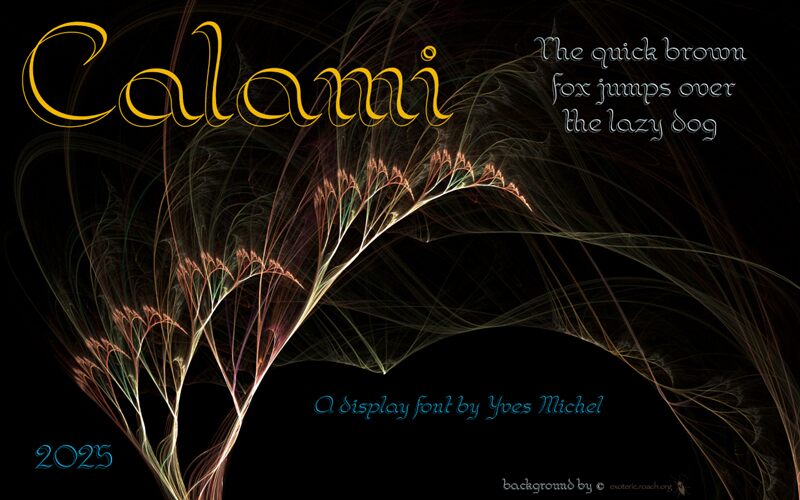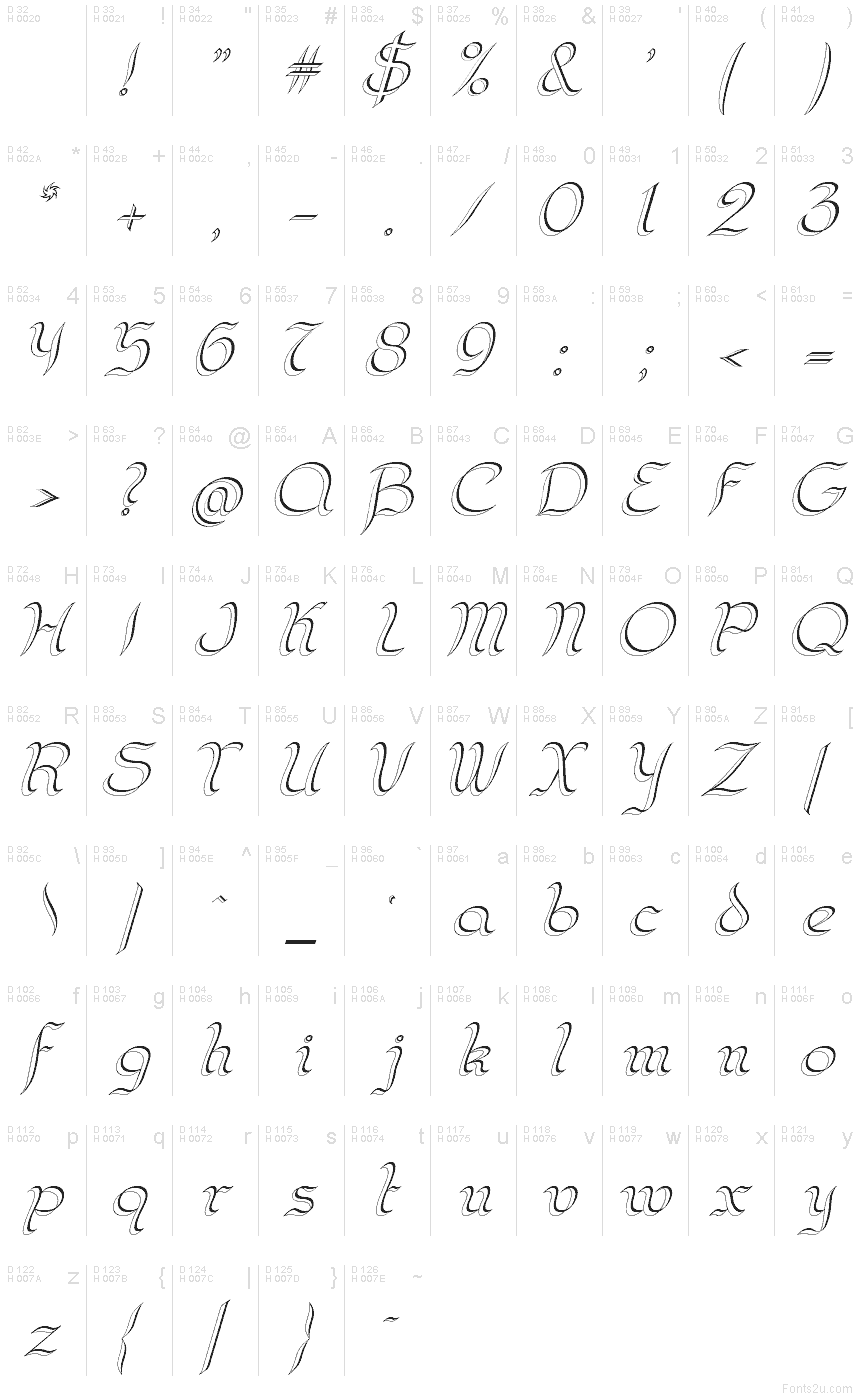
Calami Italic
Calami Italic font by Yves Michel is a display font with a classic-inspired, refined style. Its elegant and expressive feel makes it suitable for projects that require a more sophisticated touch. With italic letterforms and appropriately placed serifs, this free font easily stands out in printed and digital designs.
Use it for book covers, newspapers, invitation cards, restaurant menus, greeting card designs, certificates, branding projects including business cards and logos. It will also look stunning on product packaging as well as tattoo artwork.
This font is inspired by an exercise in penmanship from "The Zanerian Manual of Alphabets and Engrossing," a book digitized by David Grimes (https://masgrimes.com/).
I scanned and digitized it, transforming it from back italic to regular.
It is a calligraphic font created with a double-pointed pen, which is light on the left and broad on the right. This style resembles the "Scroll Nibs 10" from William Mitchell Ltd, the "Twin Nib" from Kaweco, or the "Twin Italic Point" from Bock.